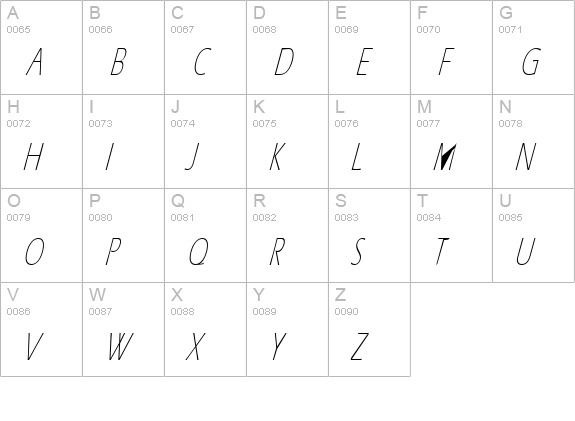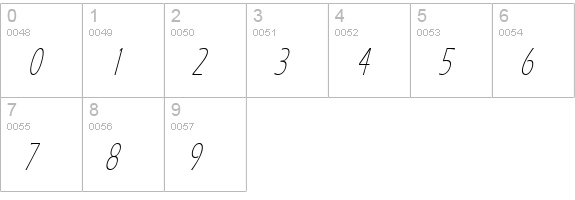
Eric Lite Italic is a distinctive, italic variant in the Eric typeface family \xE2\x80\x94 well suited to design and typography projects.
Eric Lite Italic font is a modern and stylish typeface designed for those who appreciate elegance and sophistication in their designs. With its sleek and slender letterforms, this font exudes a sense of grace and refinement. The italic styling adds a touch of flair and personality, making it perfect for projects that require a touch of sophistication. One of the best things about Eric Lite Italic font is that it is available for free download at FontsMarket.com. This means that you can easily access this high-quality font without breaking the bank. Whether you're working on a personal project or a professional design, Eric Lite Italic font is sure to add a touch of class to your work. Download it today and elevate your designs with this beautiful and versatile typeface.